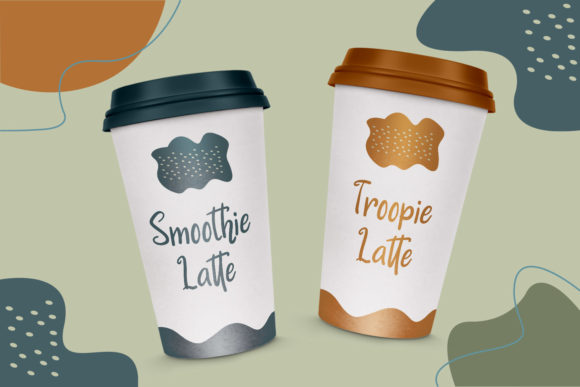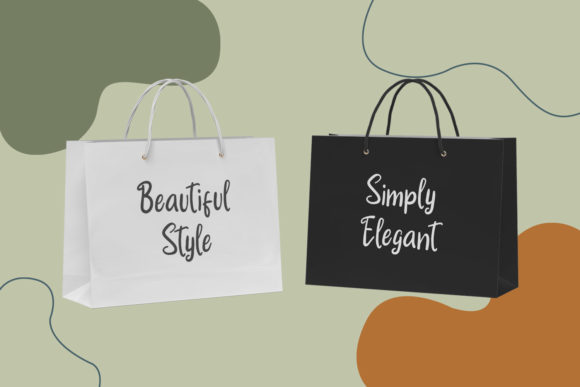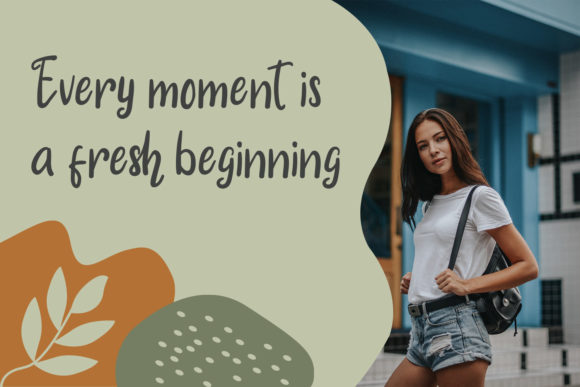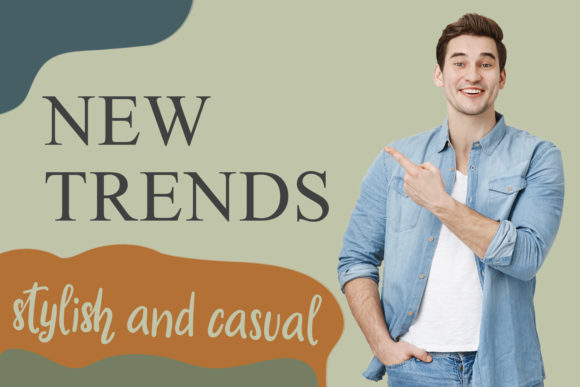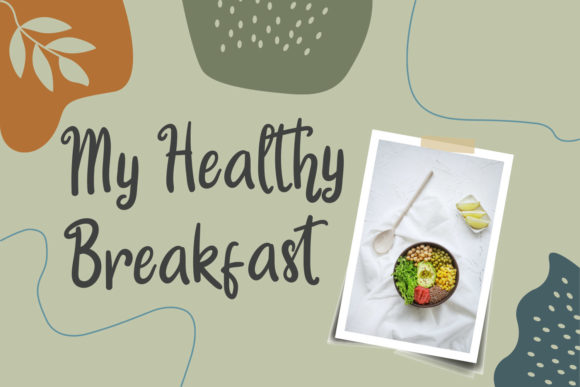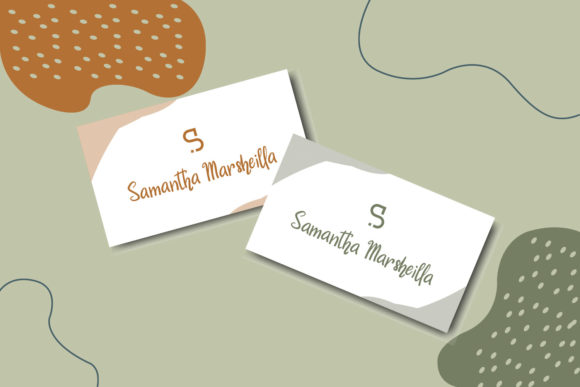
The Perfect Companion for Your Creative Journey
Have you ever found yourself stuck in the creative process, searching for that one thing that will bring your project to life? You know, that spark that sets your imagination ablaze and makes everything click into place? For many designers, that spark is often found in the perfect font. And for those who are on the hunt, we’re excited to introduce you to the Cabatoyan Font – a playful and simple handwritten font that’s sure to become your new go-to.
With its charming and approachable feel, the Cabatoyan Font is the perfect addition to any designer’s library. Whether you’re working on a brand identity, a social media campaign, or a blog post, this font has the potential to elevate your creation and make it truly stand out. Its versatility and friendly demeanor make it an incredibly valuable asset for designers, allowing you to add a personal touch to any project.
Cabatoyan Font Key Features
- Font Style: Script, Calligraphy, and Decorative font
- Unique Characteristics: Distinctive hand-drawn style, elegant and sophisticated feel, and a wide range of ligatures and swashes for added flair
Cabatoyan Font Review
Overall, I’m impressed with the unique character of the Cabatoyan Font. ✨ It’s got a certain charm to it that’s perfect for designs where you want to evoke a sense of tradition or cultural heritage. The font is well-suited for titles, headings, and other display text where you want to make a statement.
One of the things that stands out about Cabatoyan is its legibility. ✨ It’s clear and easy to read, even at smaller sizes. This makes it a great choice for body text, especially in longer blocks of text where you need to keep your readers engaged.
While Cabatoyan is a solid choice for many designs, it does have some limitations. ⚠️ One of the main issues is its limited character set. This can make it difficult to use for longer blocks of text or for designs where you need to support multiple languages.
Another limitation is the font’s weight. ⚠️ While it’s available in a few different weights, it’s not as versatile as some other fonts on the market. This can make it harder to use in designs where you need to create contrast or hierarchy.
Overall, I think the Cabatoyan Font is a great choice for designers who are looking for a unique and culturally rich font. While it has some limitations, its legibility and charm make it a solid choice for many designs.
- Unique and culturally rich character
- Legibility is clear and easy to read
- Perfect for titles, headings, and display text
- Limited character set
- Not as versatile as some other fonts
- Weight is limited
Tips for Getting the Most Out of Cabatoyan Font
Use Cabatoyan Font for designs that require a unique and creative touch. This font is ideal for headings, titles, and other text elements where you want to draw attention.
Cabatoyan Font is commonly used for:
- Designing posters and flyers
- Creating business cards and letterheads
- Designing menus and price lists
- Adding a unique touch to presentations and reports